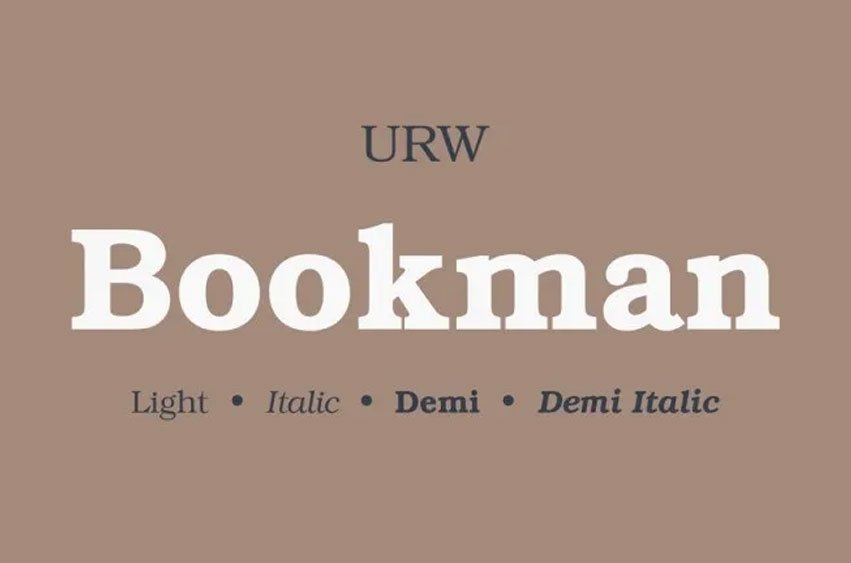
Bookman Font is a strong slab serif typeface with ligament. A typeface in which some contrast can be seen. The available language options are letters (both upper case and lower case) and numbers as well as upper case punctuation marks. This font is developed and has been used by URW Type Foundry. URW Bookman is a transitional serif typeface with a fairly large and clear style compared to many text types of fonts.
It is from the typeface crafted by Ed Benguiat in the year 1975. Bookman Slab Serif Font comes with Light and Demi variations and has matching Italics besides it and supports Latin, Cyrillic, and Greek scripts.